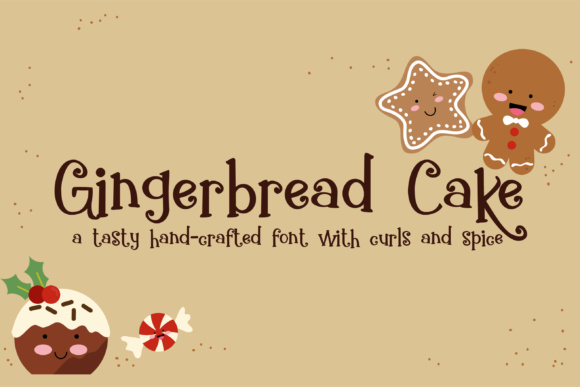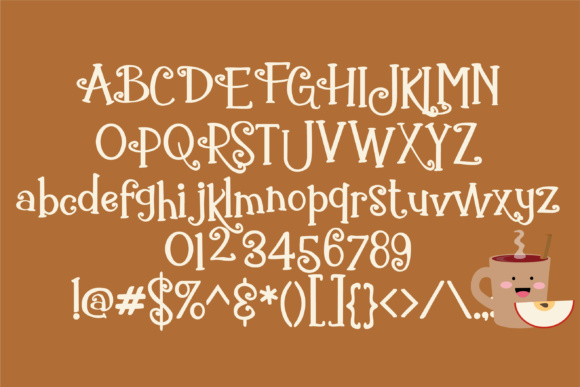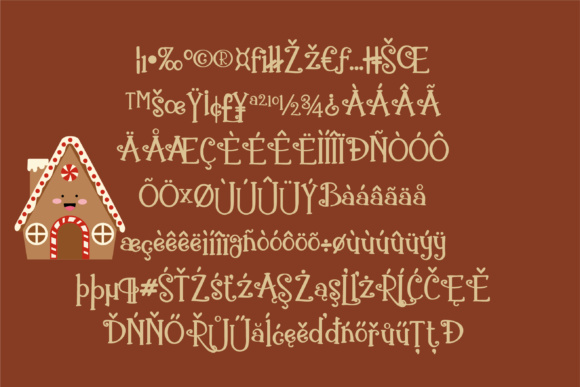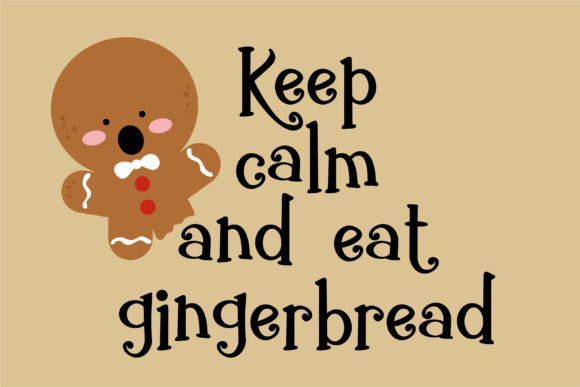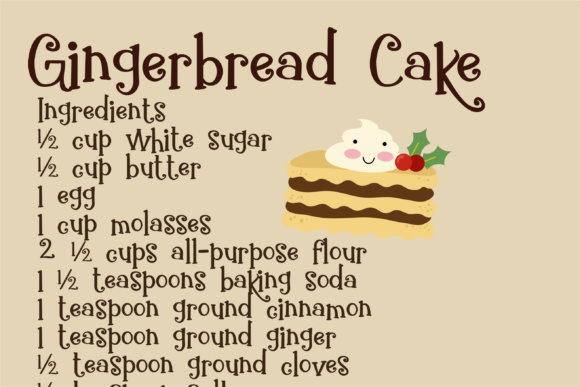
Gingerbread Cake Font
About Gingerbread Cake Font
Gingerbread Cake is a hand-crafted font with curls and spice. Don’t let it’s name fool you…it’s good any time of the year!